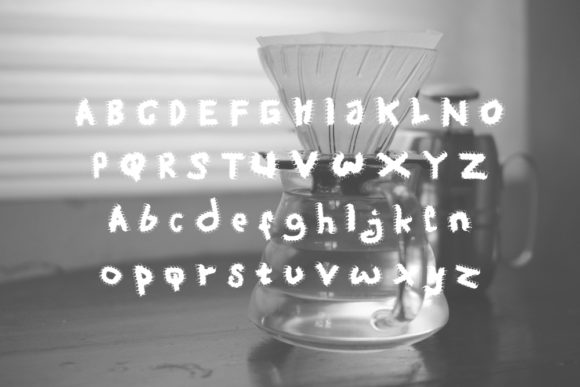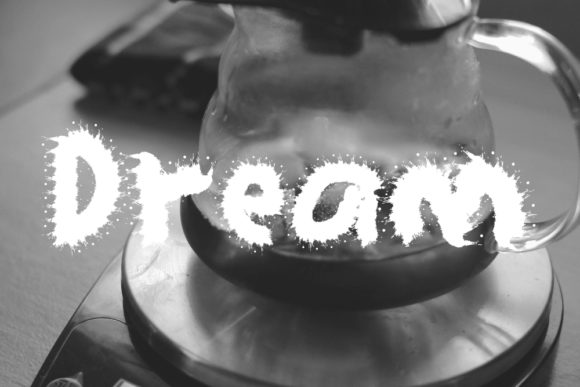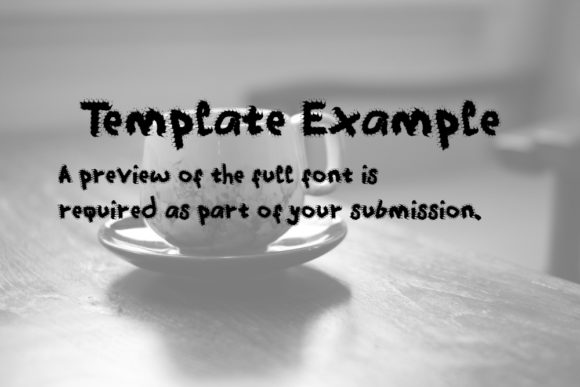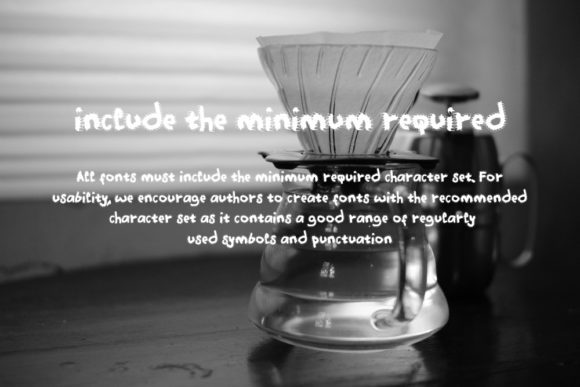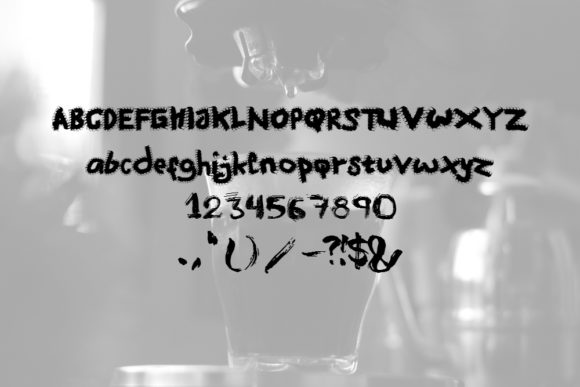
Introduction to Guondrong Font
Guondrong is a great display font.
Get creative with its unique playfulness, and use it to brighten up any crafting project .